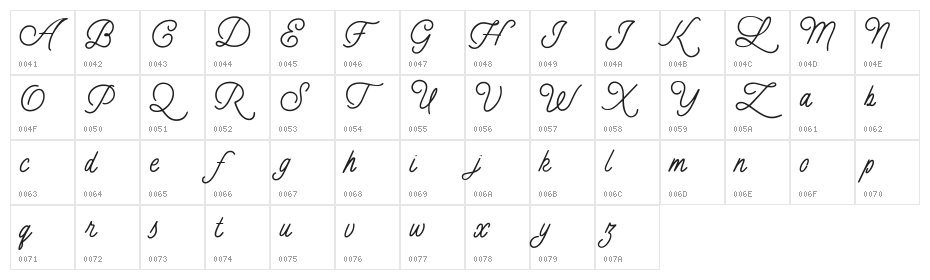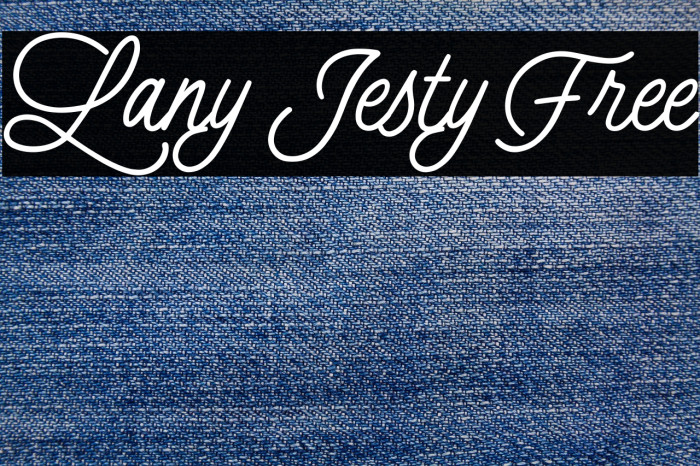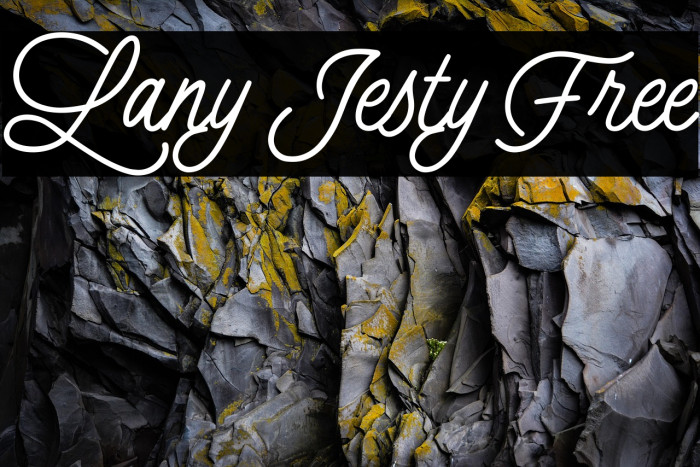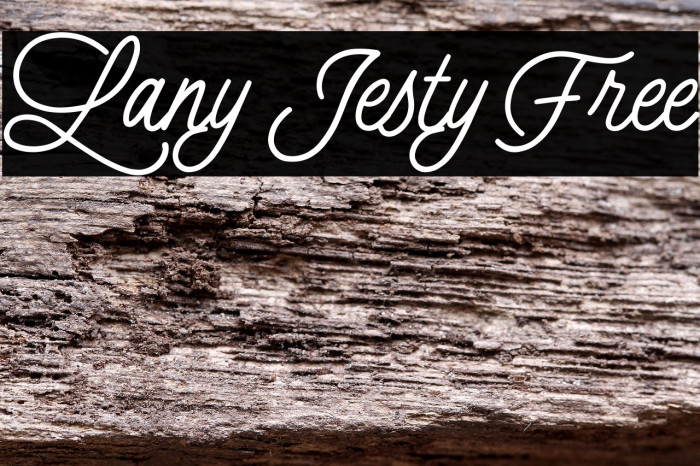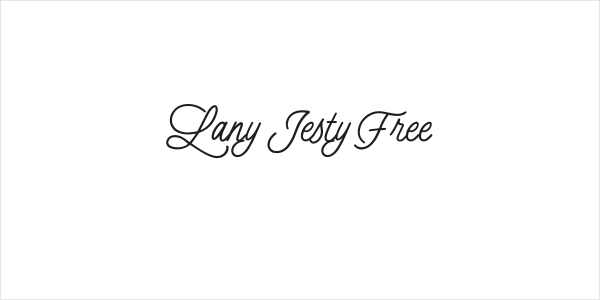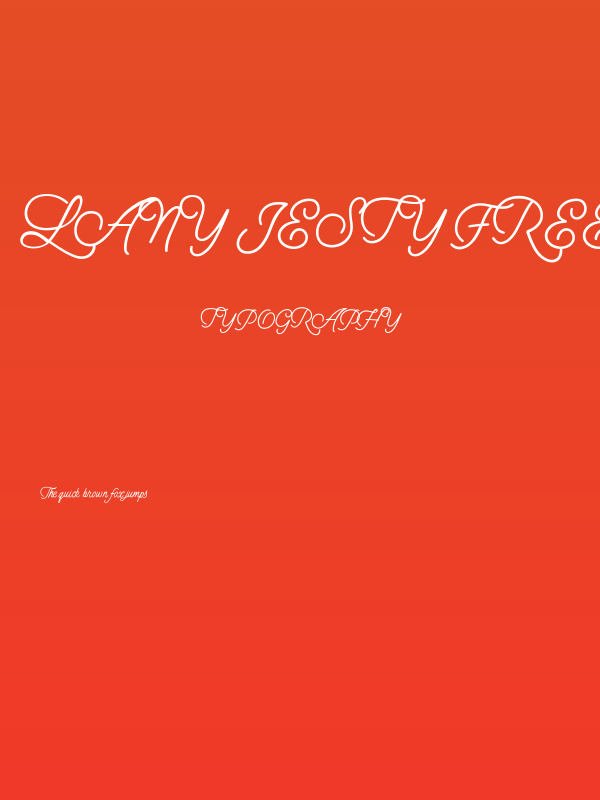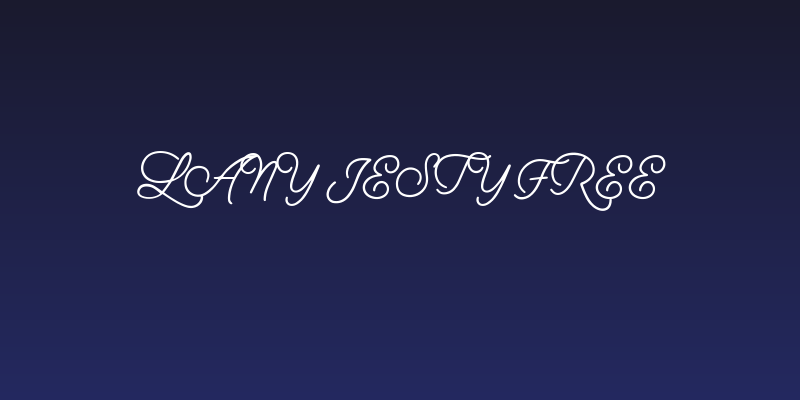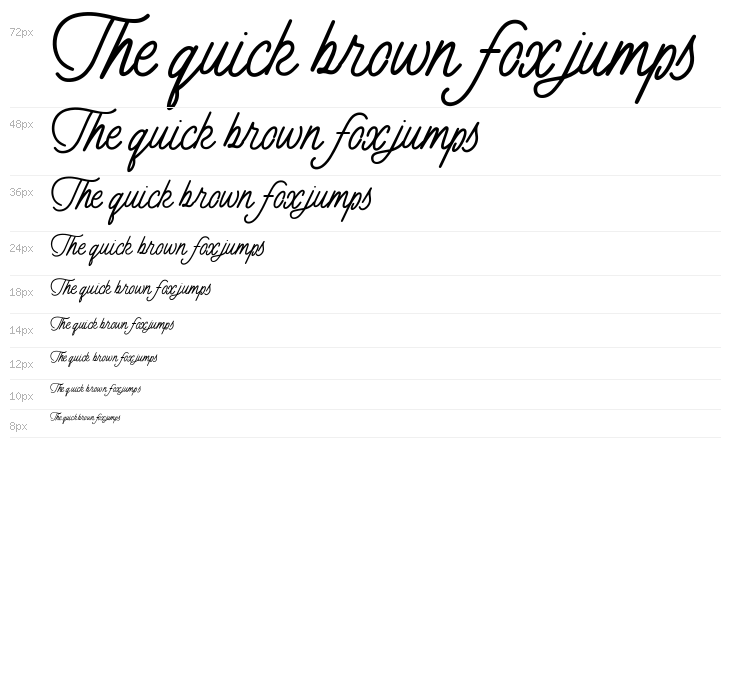
Lany Jesty Free Font
Lany Jesty Free Description
This elegant script font features flowing, cursive letterforms that exude a sense of sophistication and grace. The uppercase letters are beautifully looped and connected, creating a seamless flow across words. The lowercase letters maintain a consistent style, with gentle curves and smooth transitions between strokes. The font's overall appearance is both classic and refined, making it ideal for formal invitations, branding, and decorative projects. The characters are well-spaced, allowing for readability while maintaining an artistic flair. This font captures the essence of traditional calligraphy with a modern twist, making it versatile for various design needs.
| Proposed Projects | Ideal for wedding invitations, elegant branding, greeting cards, and decorative projects. |